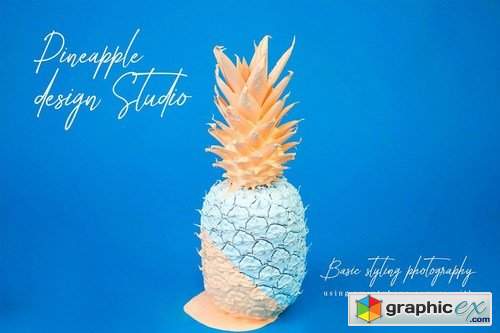
Diandra Signature Script
A font that is inspired by fast signature and freehand signatures. With casual or marker style you can create realistic handwritten headers or texts. It works beautifully for personal branding, advertising or creative headers.